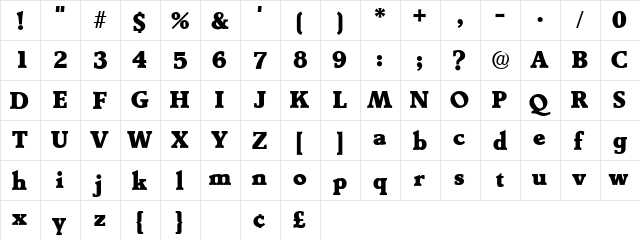
Tracto Display SSi Regular
Design Context for Tracto Display SSi Typeface
Tracto Display SSi brings ornamental detail and strong personality to headlines and identities, where visual impact matters more than quiet functionality.
Font Pairing: Pair with a clean neutral sans-serif for body copy to let Tracto Display SSi's character lead without overwhelming the composition.
Pro Tip: Treat Tracto Display SSi as the centrepiece of your typographic hierarchy. One strong heading set in a decorative face can carry an entire layout.